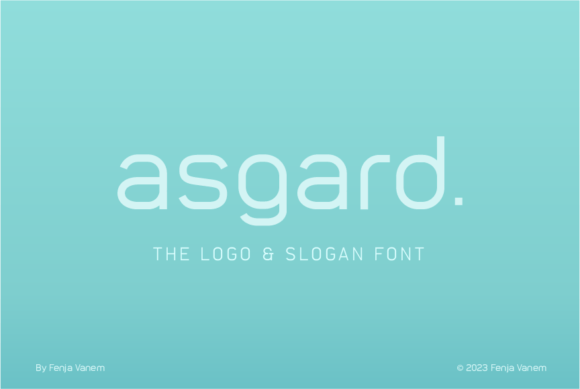
Introducing Asgard Font, the epitome of elegance and sophistication in the world of fonts. Created by the renowned design studio, Pretty Decadent, this exquisite sans-serif font is tailor-made to elevate your design projects to new heights. Let us take you on a journey through the captivating allure of Asgard Font and why it is the perfect choice for those seeking the best fonts for minimalist logos.
With its sleek lines and meticulous attention to detail, Asgard Font effortlessly combines modern style with a touch of timeless charm. Each character is meticulously crafted, resulting in a font that exudes luxury and refinement. Whether you are designing a fashion logo, creating a stunning magazine layout, or working on any high-end project, Asgard Font will infuse your work with an air of sophistication that is hard to ignore.
What sets Asgard Font apart from other fonts is its ability to evoke emotion and capture attention. Its unique and eye-catching details make it a true standout in the vast sea of typography. As you explore the collection, you'll be mesmerized by the delicate balance between simplicity and complexity that this font offers. It effortlessly strikes the perfect chord, making it the ideal choice for those who want their designs to leave a lasting impression.
But Asgard Font is not just about aesthetics; it is also a powerhouse when it comes to functionality. Its versatility allows it to adapt seamlessly to various design styles, ensuring that it can be used across a wide range of projects. Whether you're aiming for a clean and minimalistic look or a bold and impactful design, Asgard Font will rise to the occasion and deliver outstanding results every time.
When you choose Asgard Font, you're not just selecting a font; you're investing in a tool that will help you communicate your brand's essence effortlessly. Its clean and sharp lines convey professionalism and attention to detail, while its modern flair adds a touch of contemporary edge. This font is a true reflection of the values that define your brand, making it an invaluable asset for any designer or creative professional.